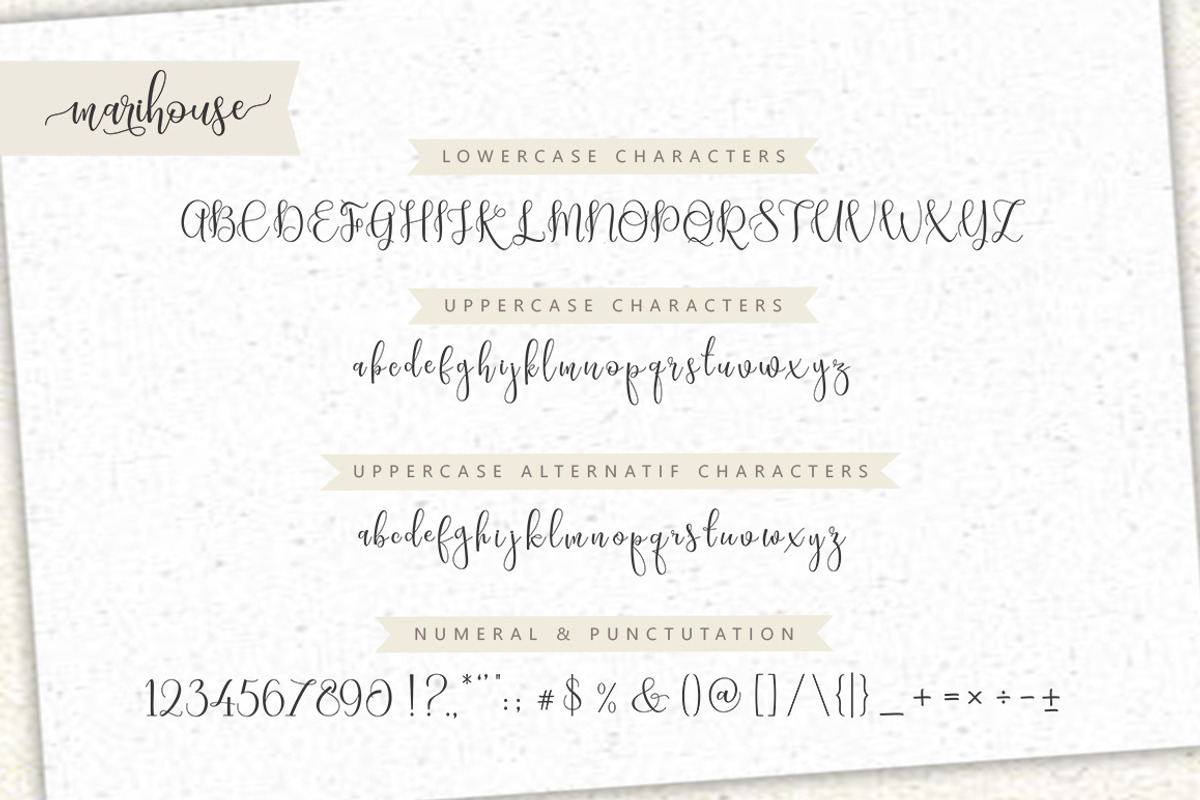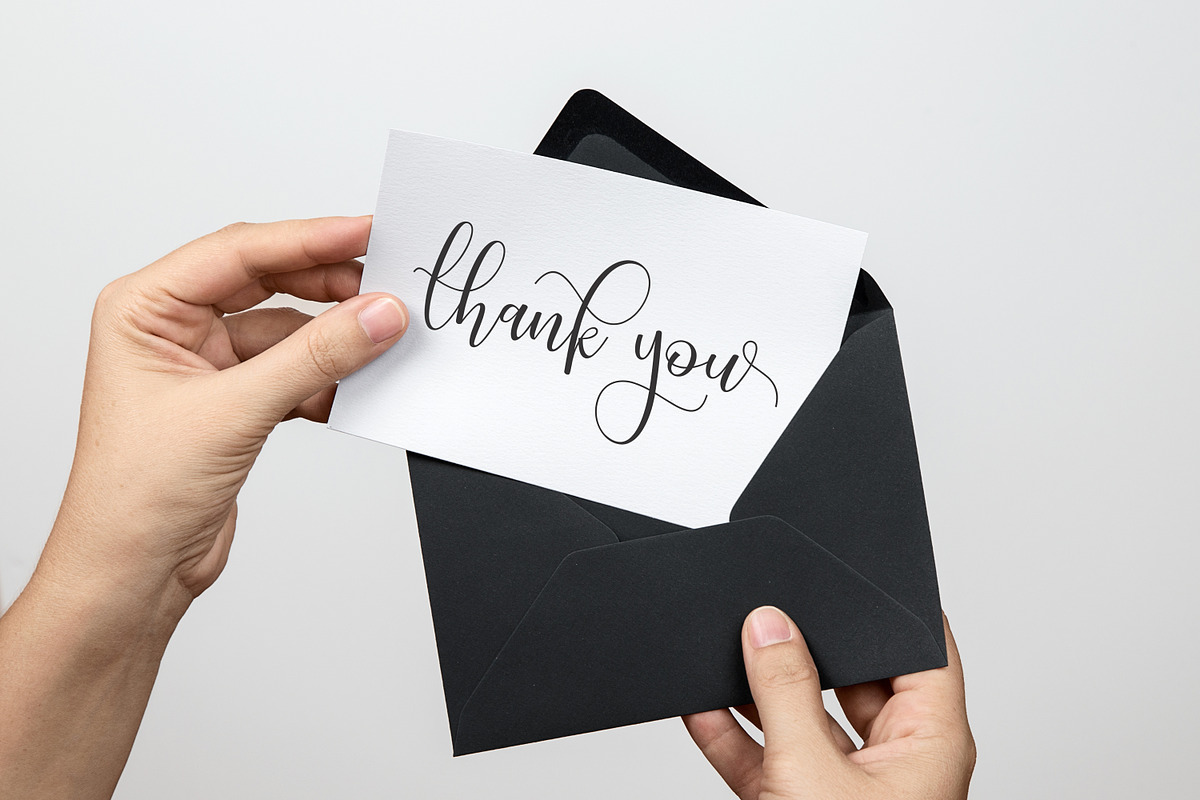
Marihouse Script is a beautiful calligraphy design, including Regular and italic. This font is enough with a sweep. Can be used for various purposes. such as logos, product packaging, wedding invitations, branding, titles, signs, labels, signatures, book covers, posters, quotes and more.
Marihouse script displays alternative OpenType styles, ligatures and Various International for most Western languages. To enable OpenType Stylistic alternates, you support programs that support OpenType features like Adobe Illustrator CS, Adobe Indesign & CorelDraw X6-X7, Microsoft Word 2010 or later.